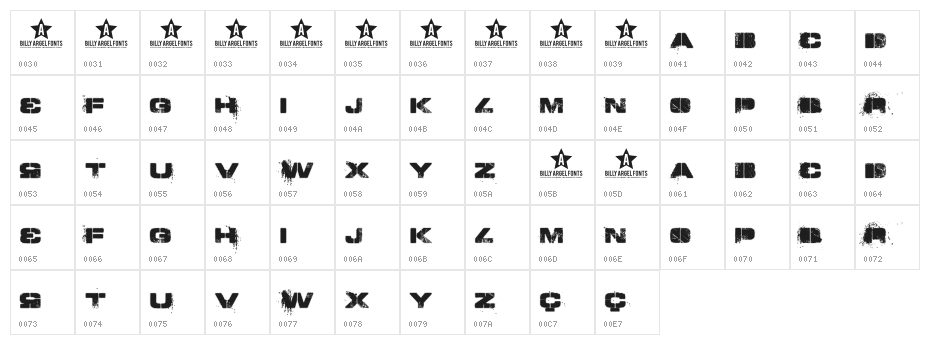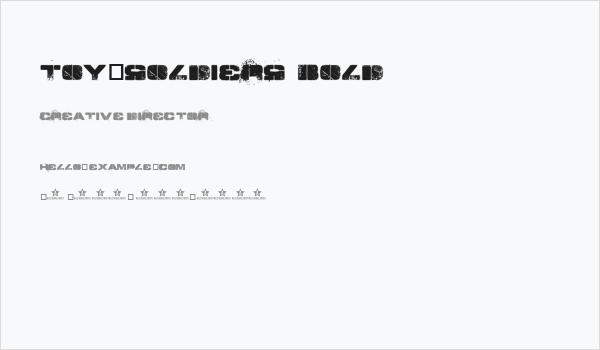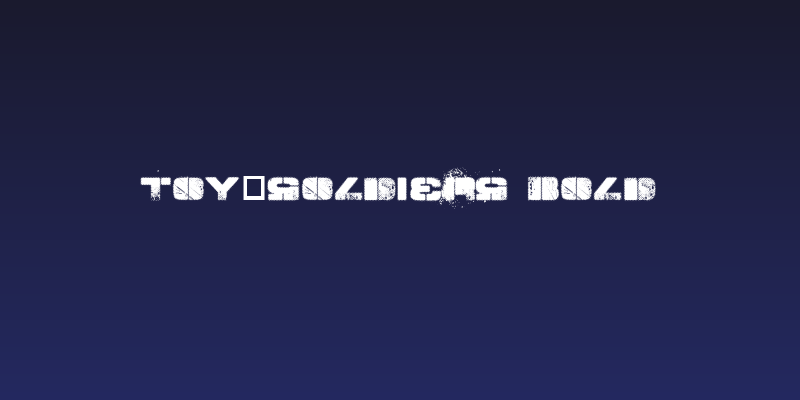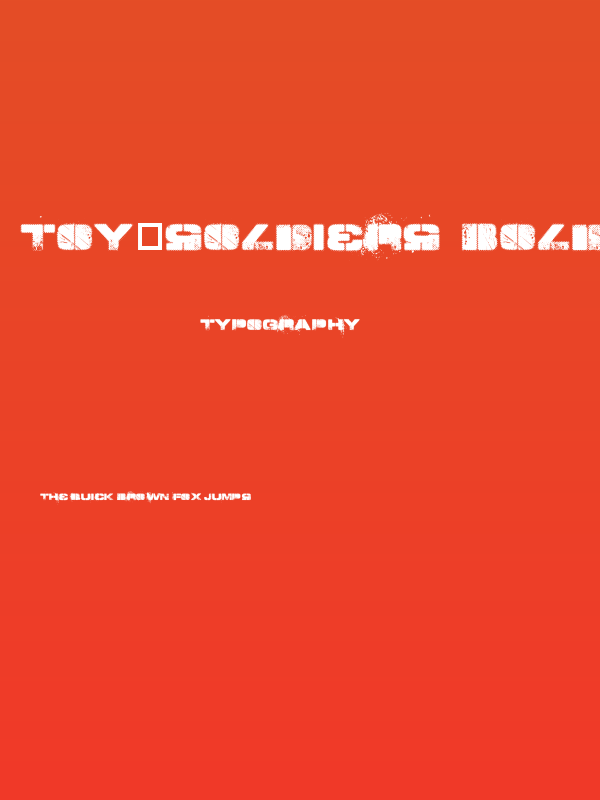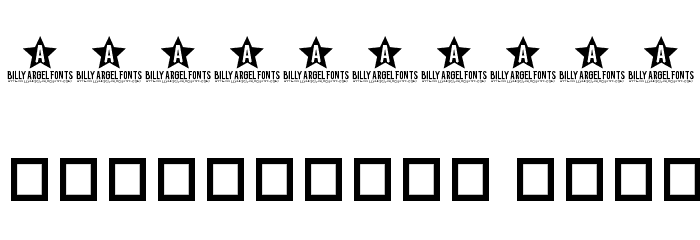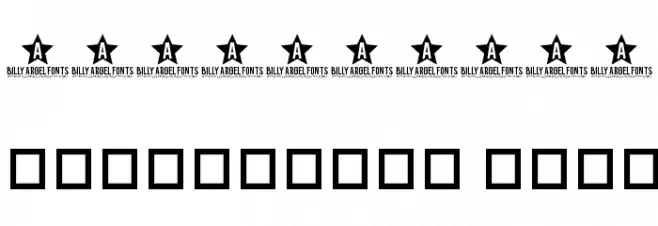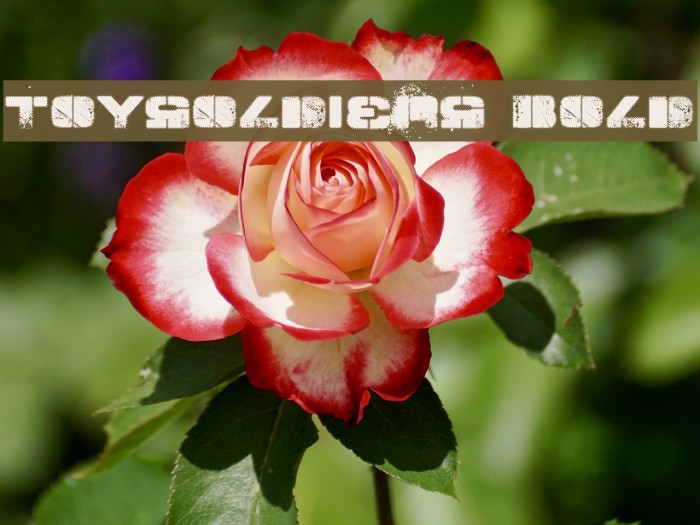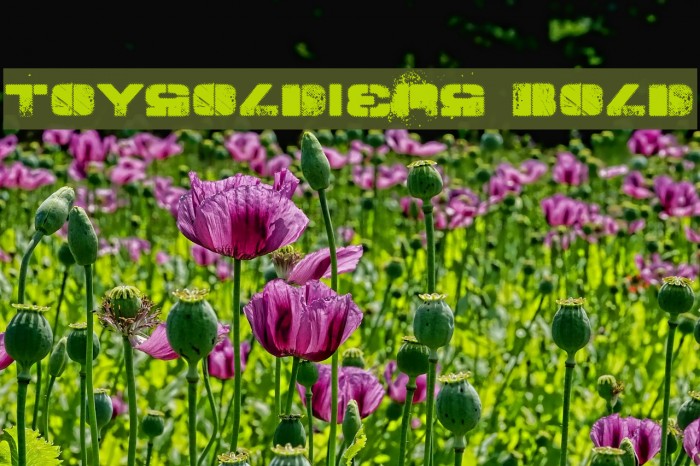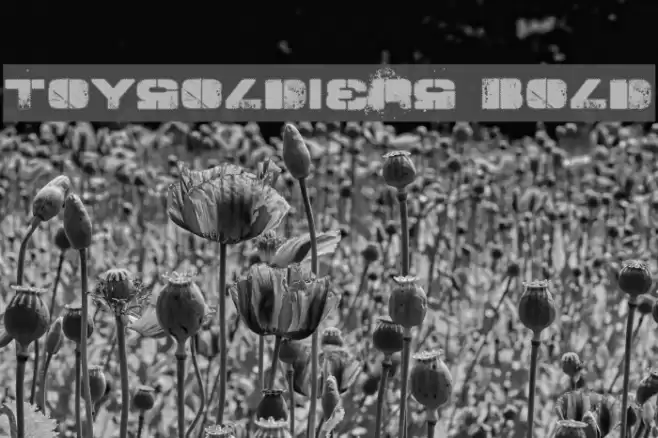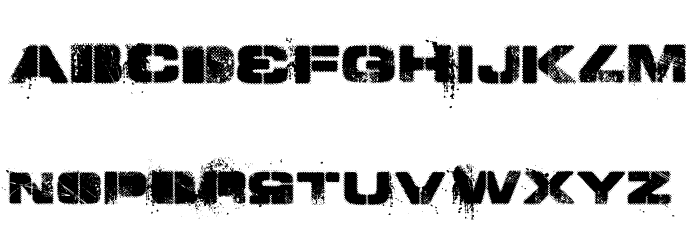
TOY_SOLDIERS Bold Font
✎ Stencil
TOY_SOLDIERS Bold Description
This font features a bold, distressed style with a stencil-like appearance, reminiscent of military or industrial themes. The uppercase letters are robust and blocky, with a textured effect that gives them a worn, rugged look. The characters are evenly spaced, maintaining a consistent width throughout. This font is ideal for projects that require a strong, impactful visual presence, such as posters, logos, or themed events. Its unique style makes it stand out, adding a touch of grit and authenticity to any design.